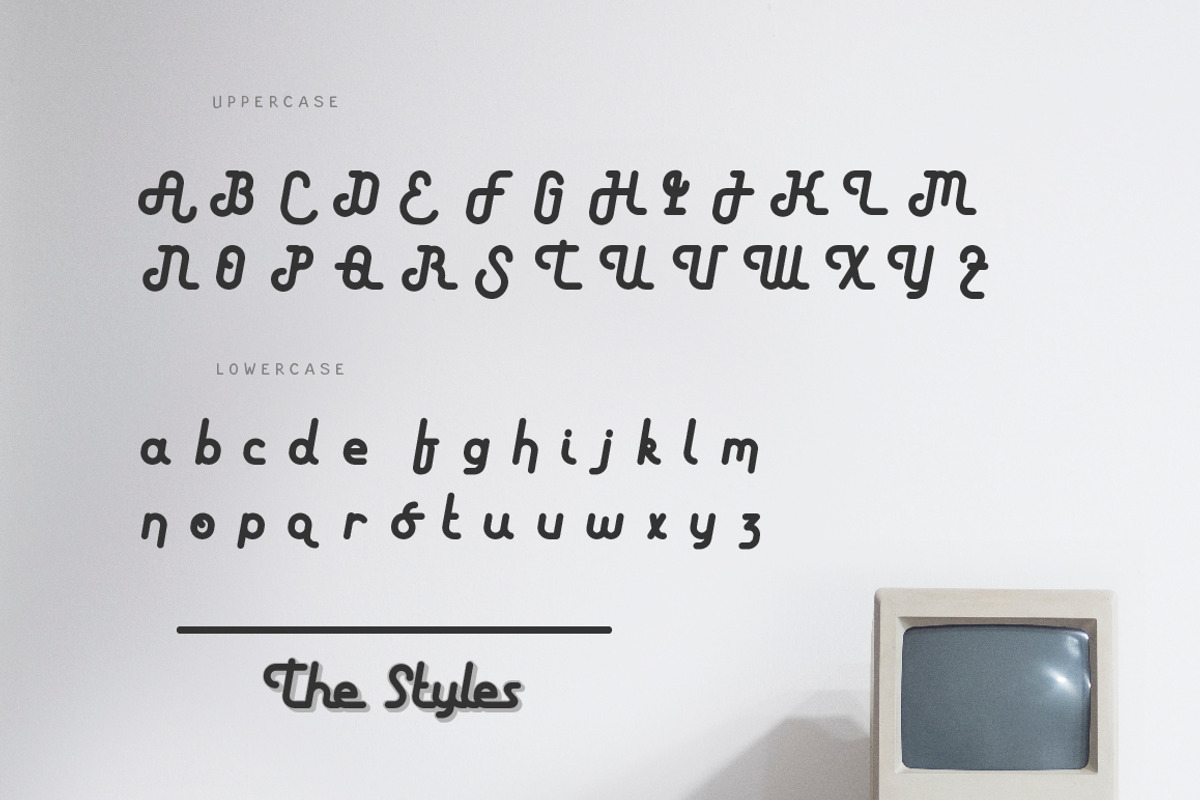
Neu Marbelous
Introducing Neu Marbelous Script.
Neu Marbelous is a simple monoline script. Comes with 3 kind of letter styles: Solid, Stripes and Shadow, bring back retro vibes to life. This typeface can be perfect for logo, title, label, etc. Download this font for your next amazing projects.
- Neu Marbelous Script
- Neu Marbelous Stripes
- Neu Marbelous Shadow